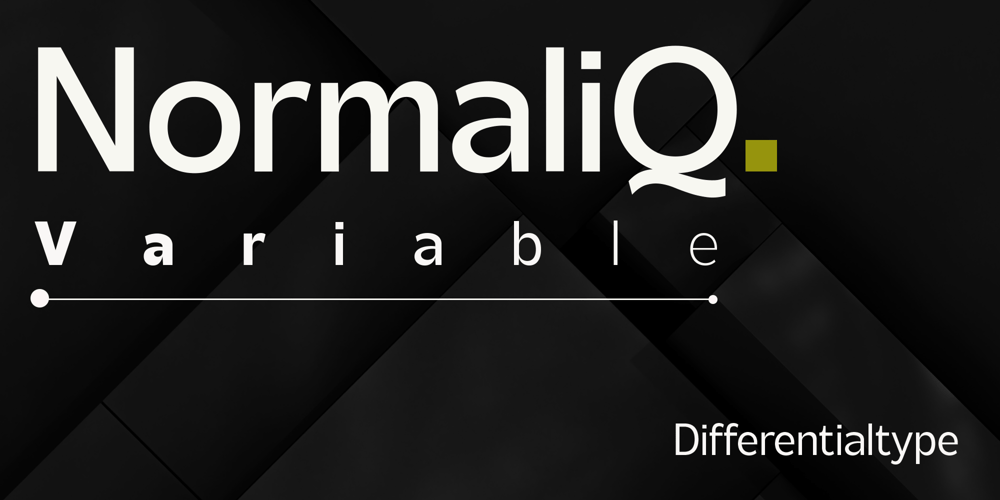
Normaliq Variable
Normaliq Variable font
Normaliq Variable Font Family was designed by Sidik Sidik and published by Differentialtype. Normaliq Variable contains 1 styles and family package options. Introducing Normaliq Variable—a modern, geometric sans serif that exudes a unique and minimalist charm. This versatile font comes in a range of thicknesses, from Thin to Black, each paired with an Italic style. The balance of hard lines and gentle curves provides strength and appeal to every weight. Normaliq Variable offers flexibility for a variety of design needs, making it perfect for impactful displays, titles, brands, logos, books, and other editorial work. Elevate your designs with the sleek and contemporary style of Normaliq Variable.